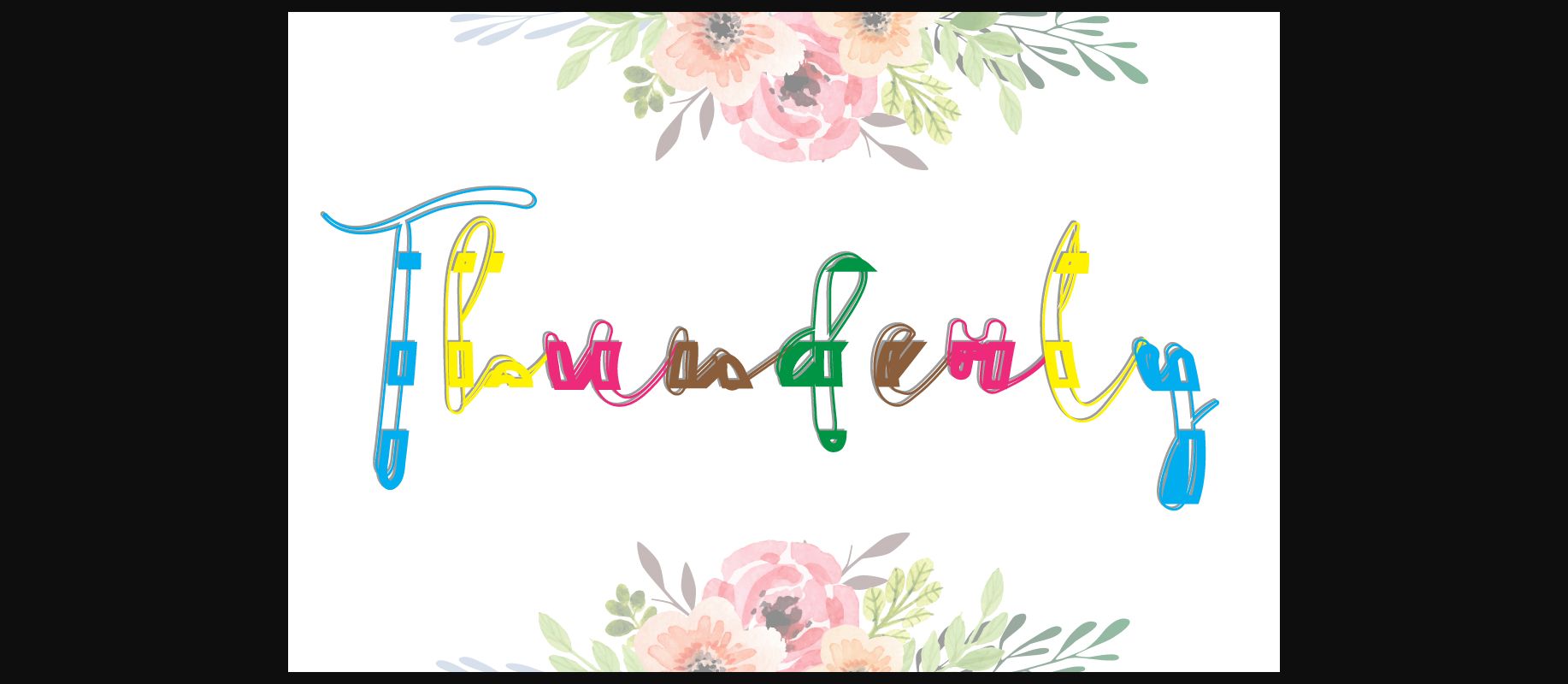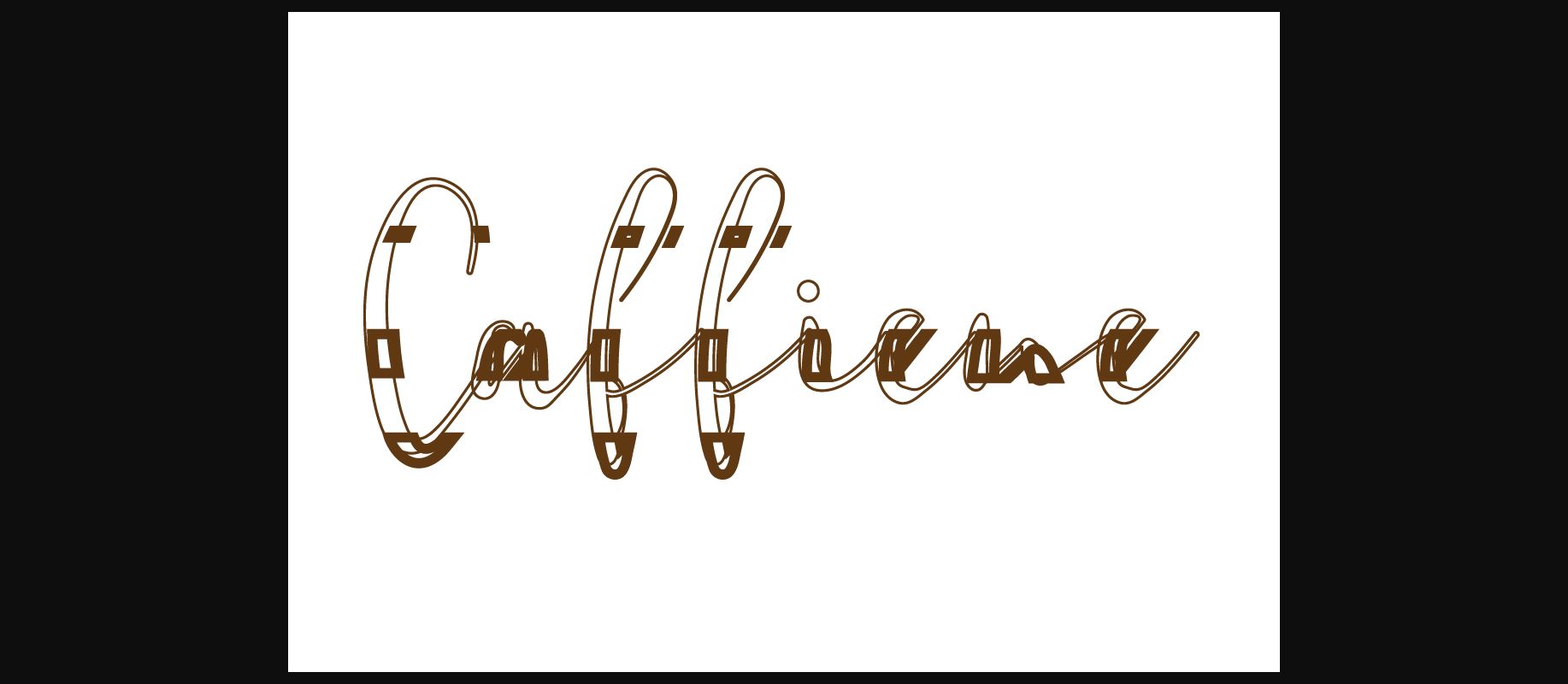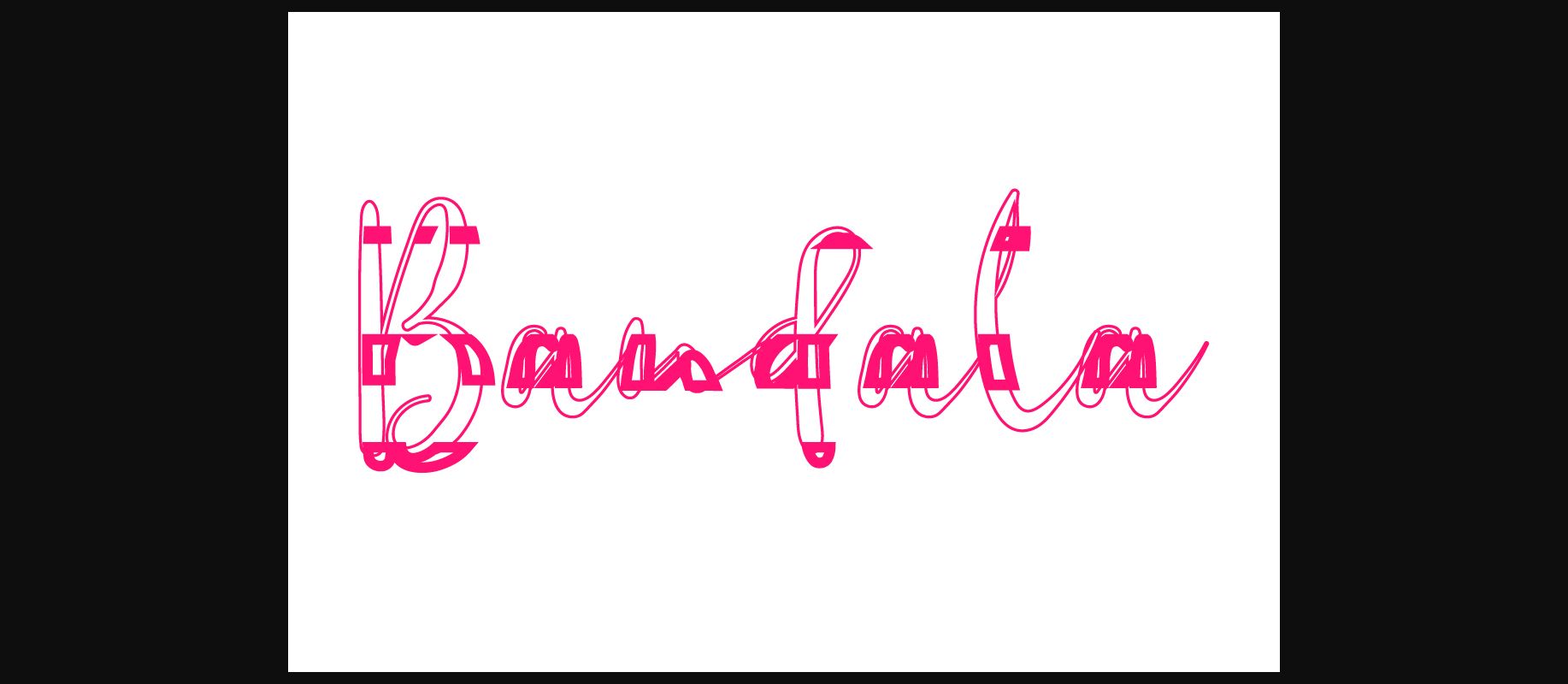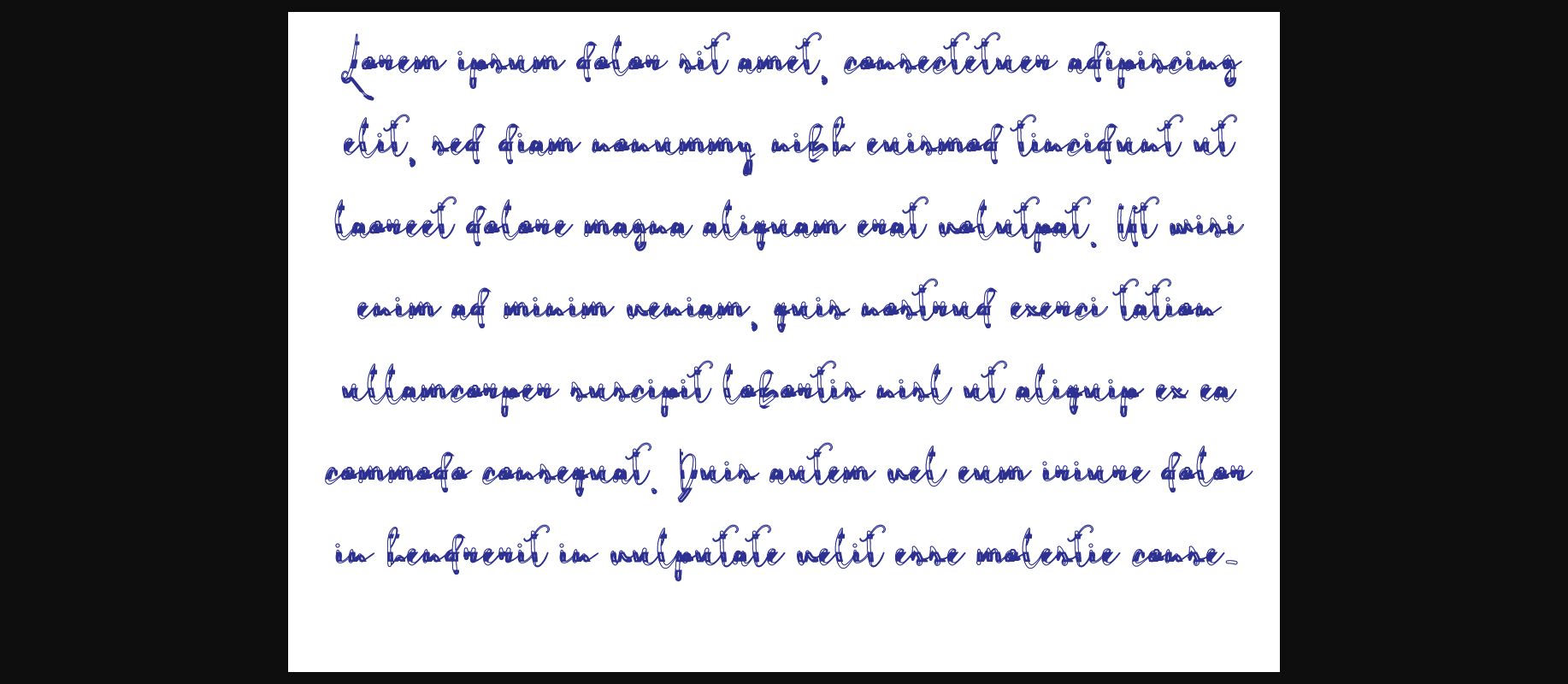
About Thunderly Script Font
Thunderly Script is a fun and kooky decorative font with a weird twist. It will easily turn any design project into a stand out!